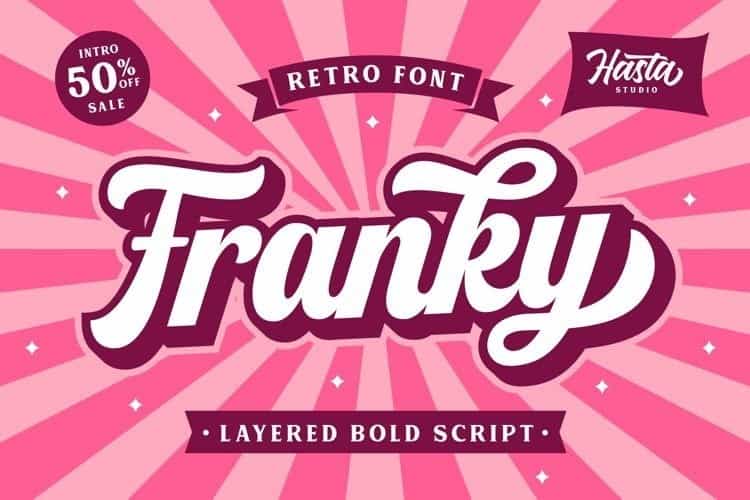
Franky – A distinctive and vintage large script font. It was created with a timeless look that will help you standout. Include uppercase and lowercase, a stylized sets, alternative languages and more to blend and match your style.